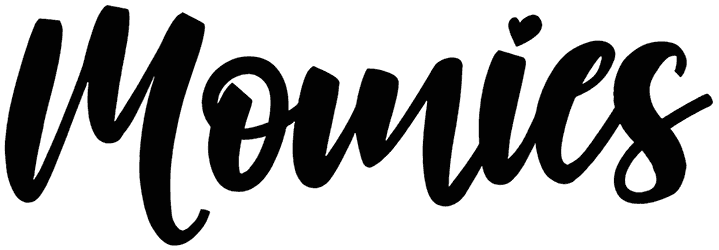
Momies Font
You’re kidding, right? You can’t seriously be in doubt about downloading Momies. Just look at those curvily connected letters and the tiny heart shapes in their structures… How can anyone not want something as cute as that in their lettering? We know we would! And in case you don’t know, we’re really good at this.
Okay, let’s put it this way. Imagine having Momies in your Valentine’s Day posters or other romantic designs. Can you imagine anything going wrong? Exactly!